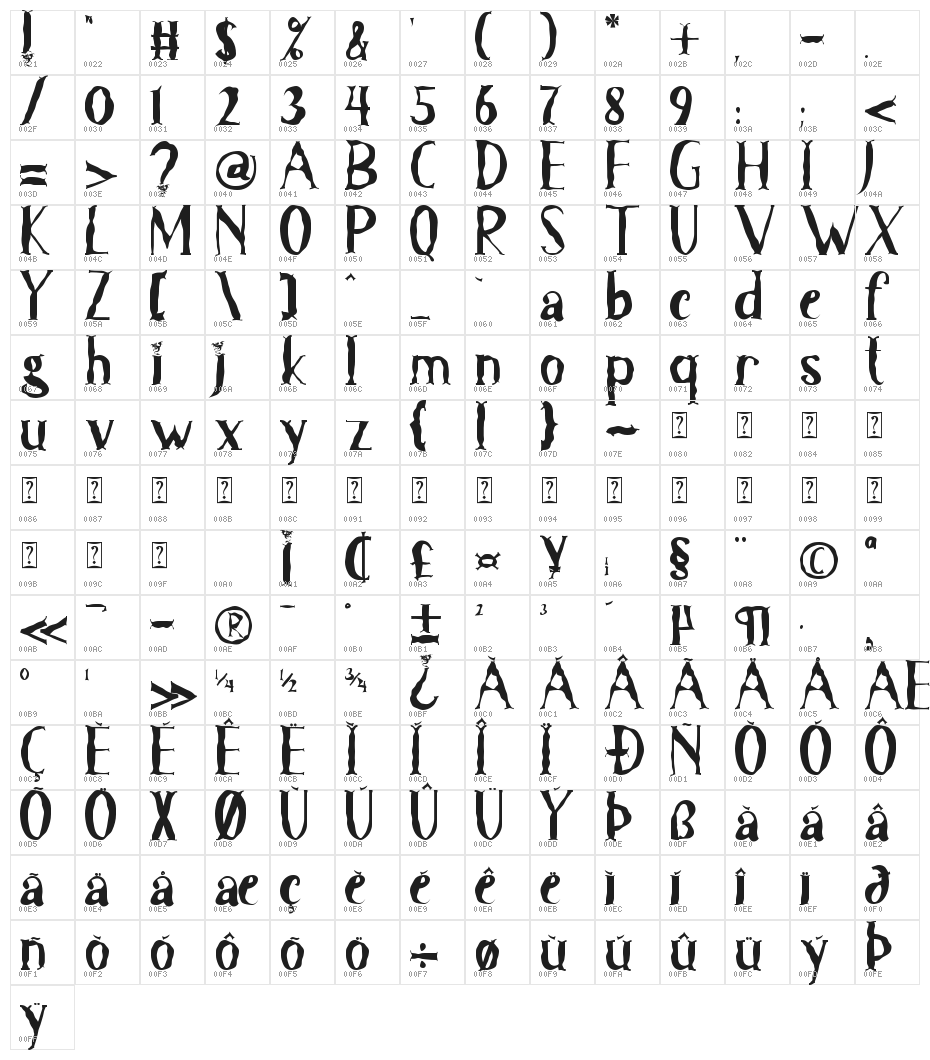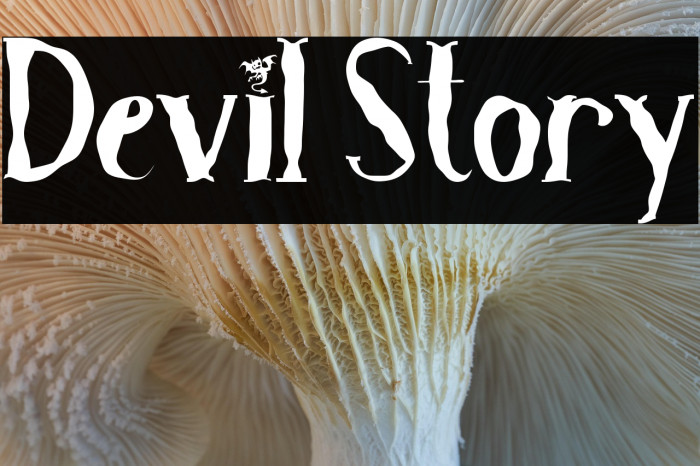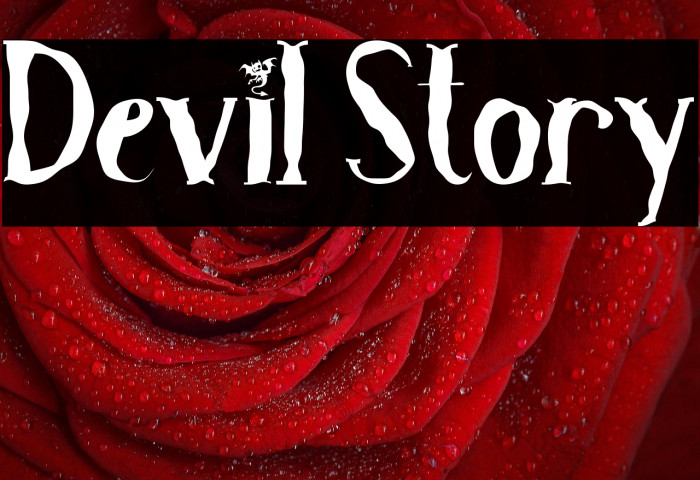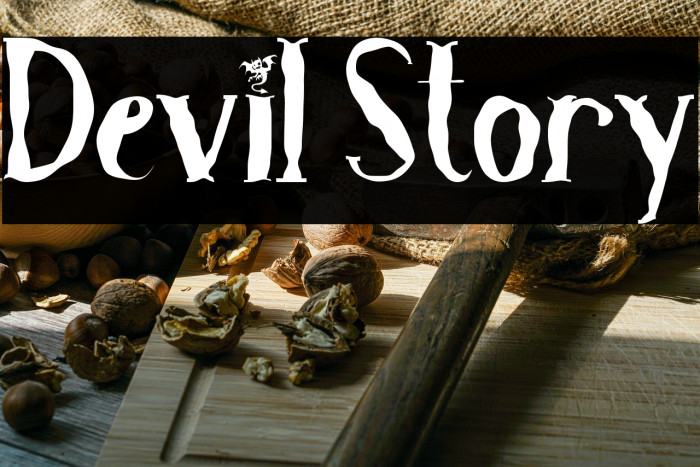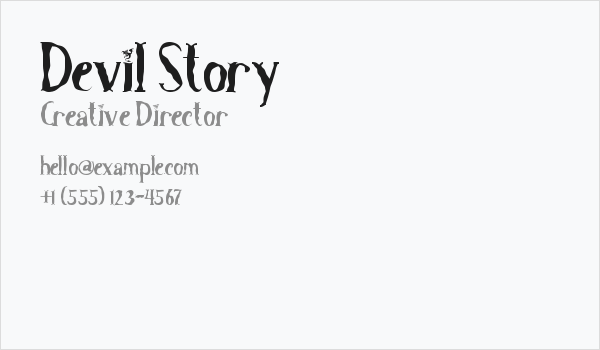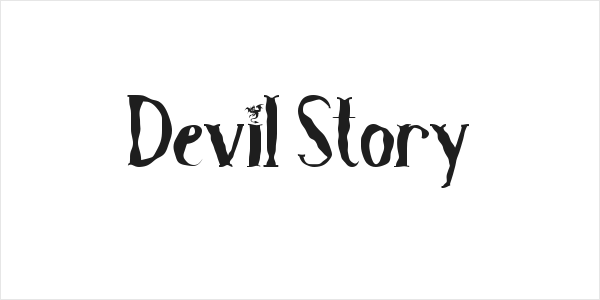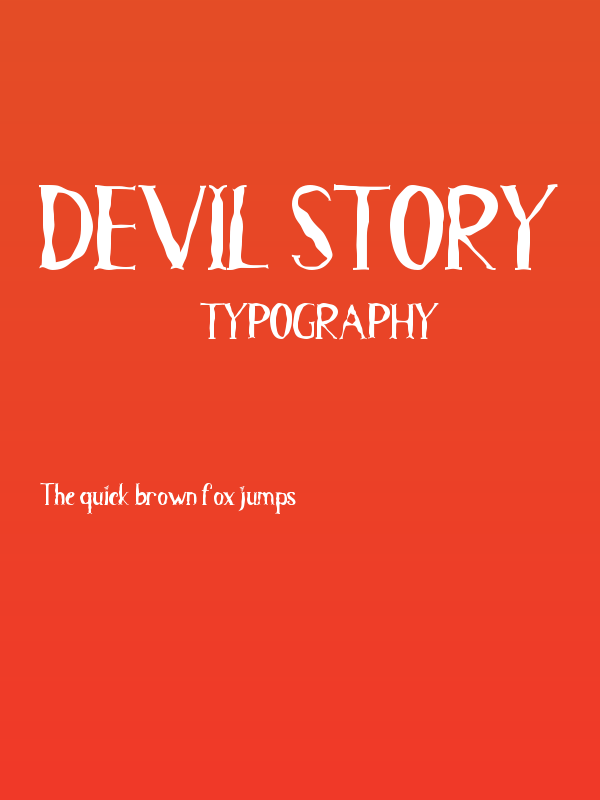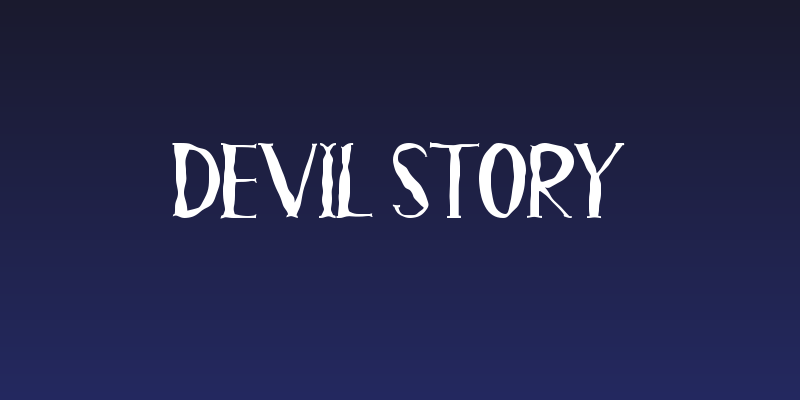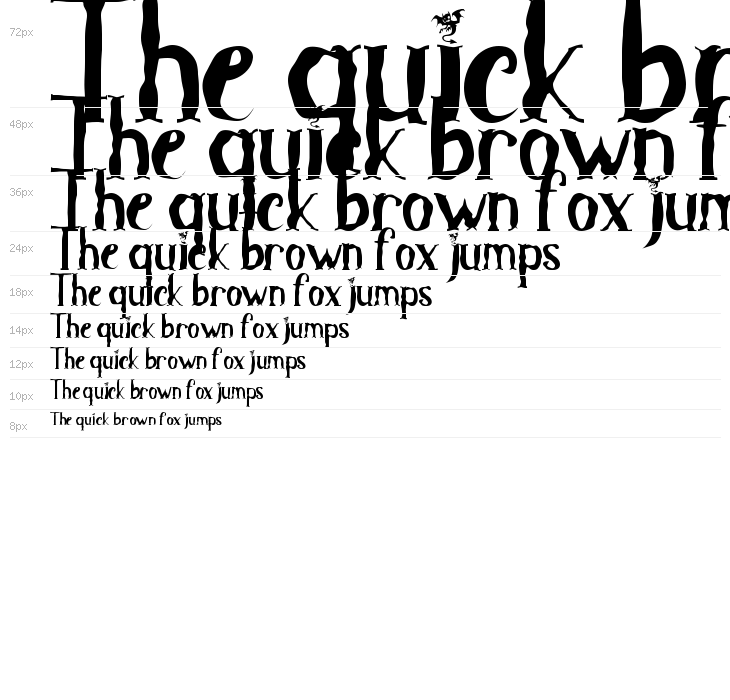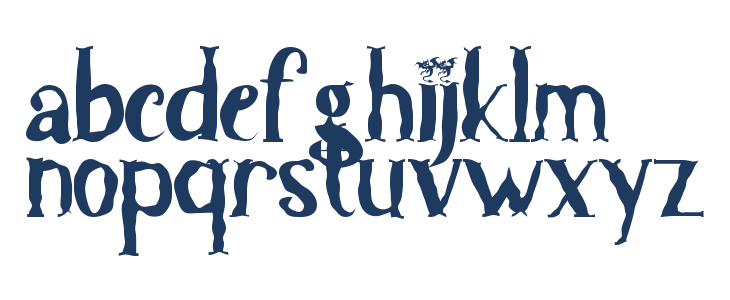
Devil Story Font
Devil Story Description
This font features a unique and edgy design with sharp, irregular edges and a slightly distorted appearance, reminiscent of gothic or horror themes. The uppercase letters are bold and striking, while the lowercase letters maintain a consistent style with a slightly more whimsical touch. Numbers and special characters follow the same aesthetic, adding to the overall eerie and dramatic feel. The font's distinctive style makes it ideal for projects that require a bold and unconventional look.
| Overall Style | Gothic, Dramatic |
| Use Case | Headlines, Posters, Logos |
| Proposed Projects | Perfect for horror-themed posters, Halloween invitations, video game titles, and any project needing a bold, dramatic typeface. |